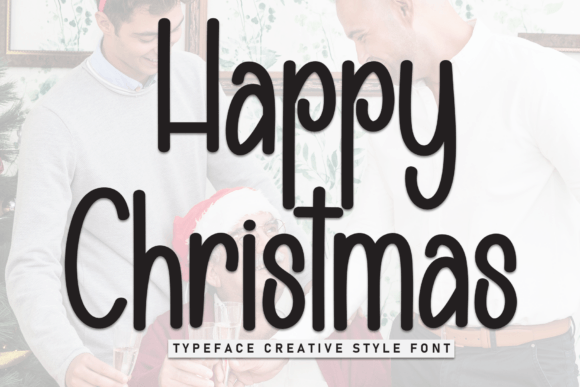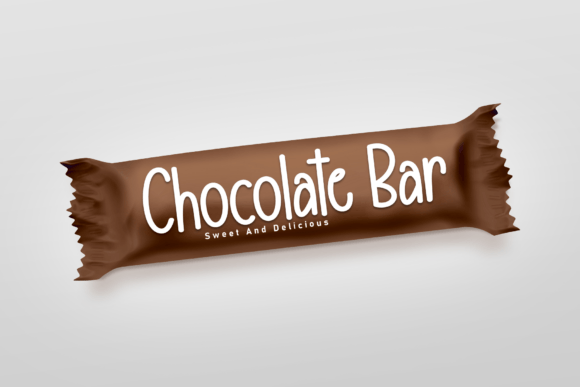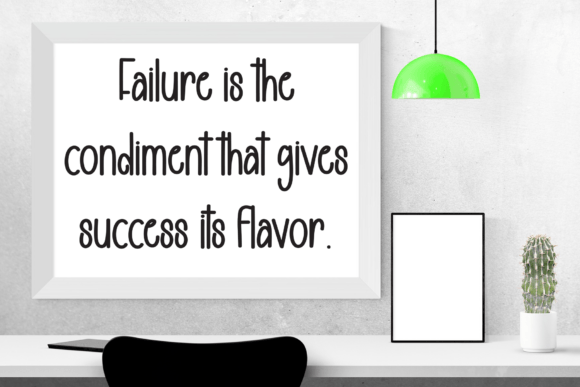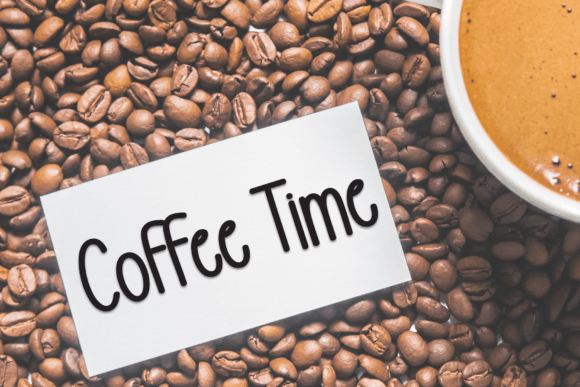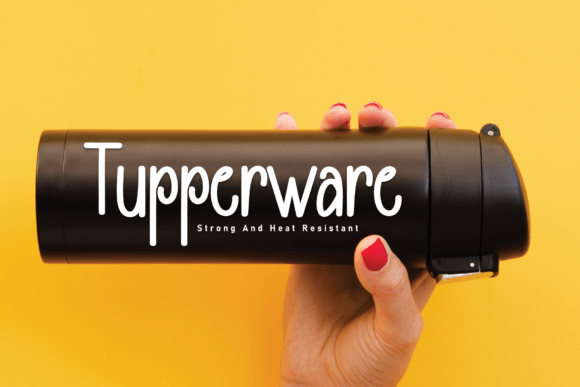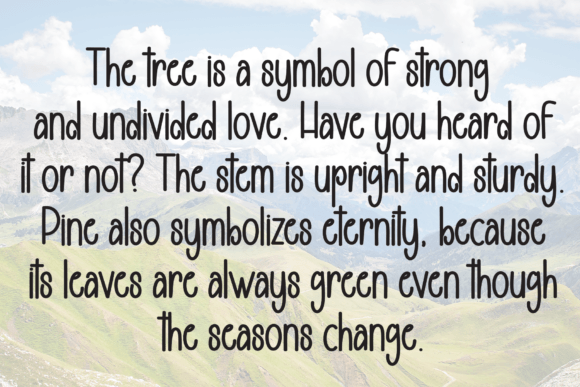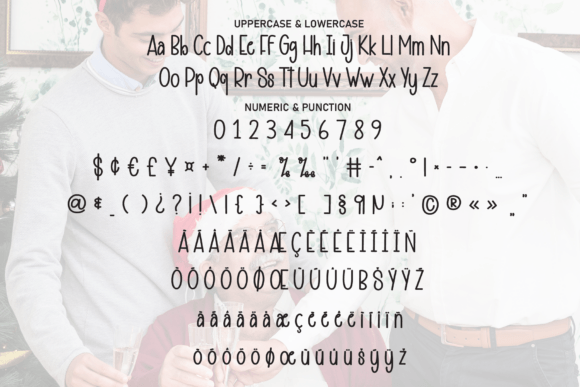
Get Ready to Deck the Halls with Joy
Have you ever been brainstorming ideas for a festive design project, only to find yourself stuck in a sea of generic fonts? I know I have. That’s when I stumbled upon the Happy Christmas Font – a charming and warmhearted handwritten display font that breathed life into my designs. With its delightful character, this font is perfect for adding a sprinkle of whimsy to wedding invitations, greeting cards, or any other project that needs a little extra magic.
As a designer, you’re always on the lookout for unique and versatile fonts that can elevate your work. The Happy Christmas Font delivers, with its playful and sweet aesthetic making it a valuable addition to any design arsenal. Whether you’re working on a holiday-themed project or simply want to add a touch of fun to your designs, this enchanting font is sure to put a smile on your face.
Key Features of Happy Christmas Font
- Unique Characteristics: Whimsical and playful design elements, including ornaments and festive illustrations, to add a touch of holiday cheer.
- Font Style: Script and casual font styles, perfect for creating a friendly and approachable tone in holiday-themed designs.
Designer Review: “Happy Christmas Font”
Overall, I was excited to dive into “Happy Christmas Font” and see what it had to offer. ✨ The font’s playful, whimsical feel is perfect for holiday-themed designs, and the variety of styles included is a nice touch. The font’s versatility is one of its strongest suits – it’s suitable for everything from social media graphics to print materials.
The font’s character set is also well-rounded, with a good mix of uppercase and lowercase letters, numbers, and special characters. ✨ The font’s legibility is clear, even at smaller sizes, which is a must for any font intended for digital use.
While “Happy Christmas Font” has a lot going for it, there are a few areas where it falls short. ⚠️ One of the main issues is the font’s limited language support – it’s only optimized for English, which may limit its use for designs targeting international audiences. Additionally, the font’s file size is a bit larger than average, which could slow down loading times in some cases.
Final Verdict
Overall, I think “Happy Christmas Font” is a solid choice for holiday-themed designs. While it may not be the most comprehensive font available, its playful feel and versatility make it a great addition to any designer’s toolkit. With a bit more work on language support and file size, I think this font could be truly exceptional.
- Playful, whimsical feel
- Variety of styles included
- Well-rounded character set
- Clear legibility at smaller sizes
Use the Happy Christmas font to add a festive touch to your holiday designs.
Some common use cases include:
– Holiday cards and invitations
– Social media posts and graphics
– Custom holiday graphics and designs
– Holiday presentations and documents